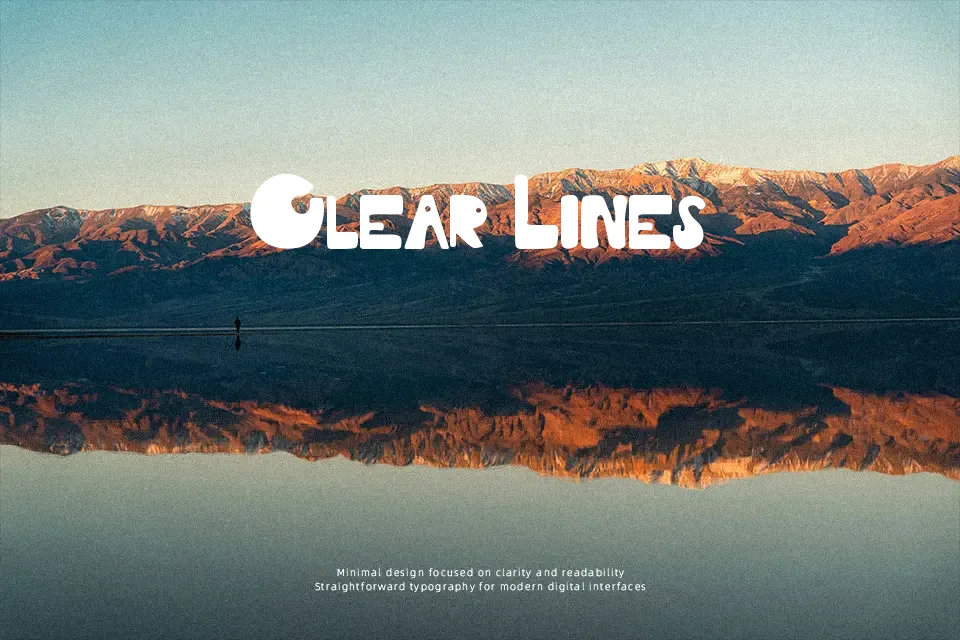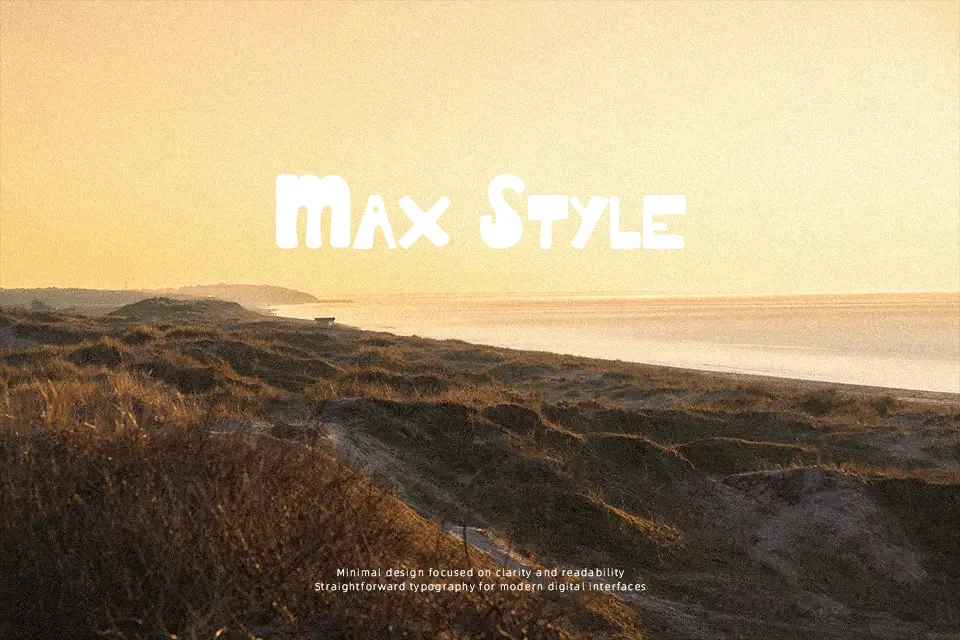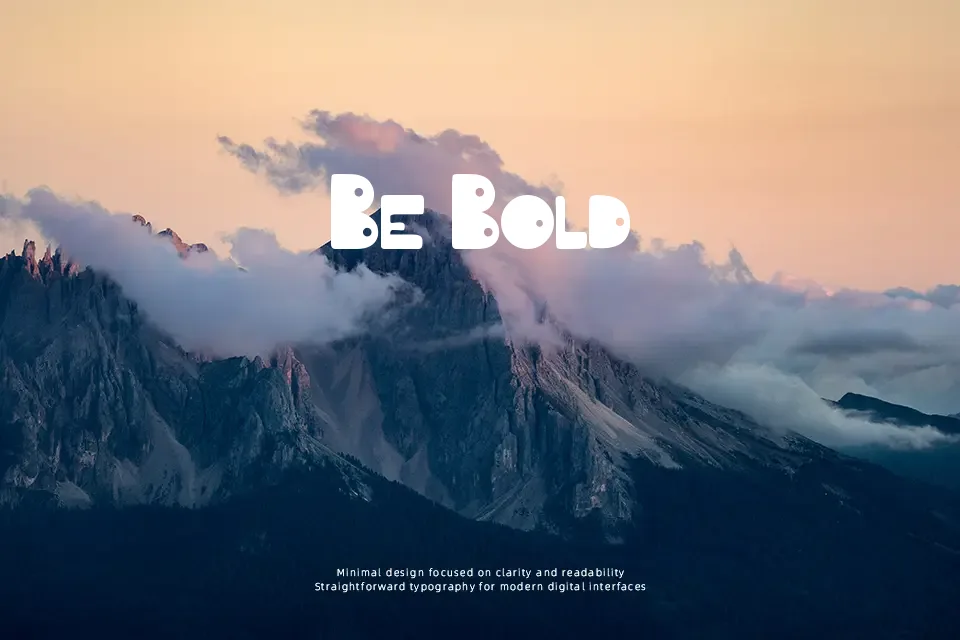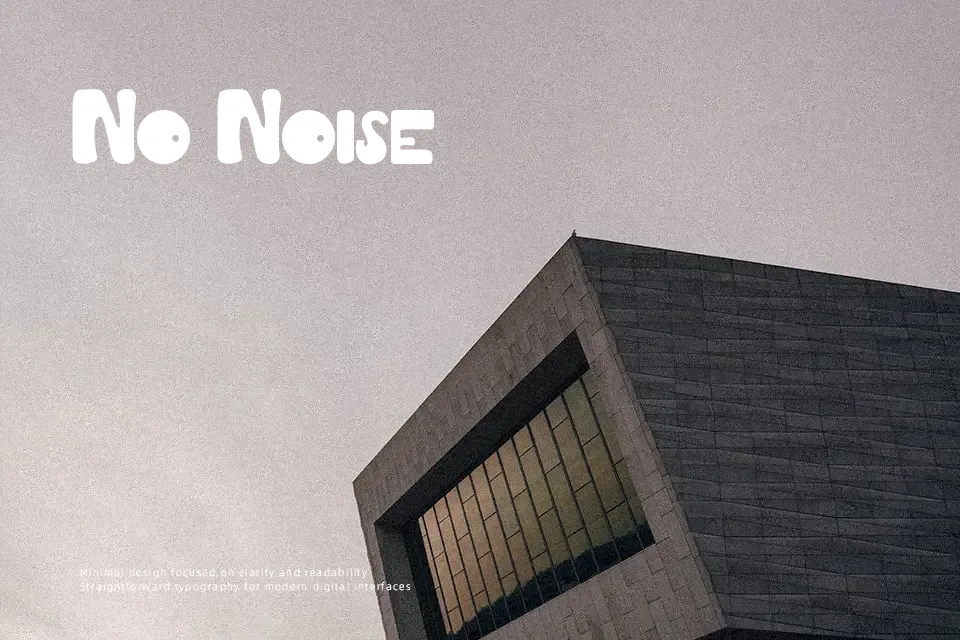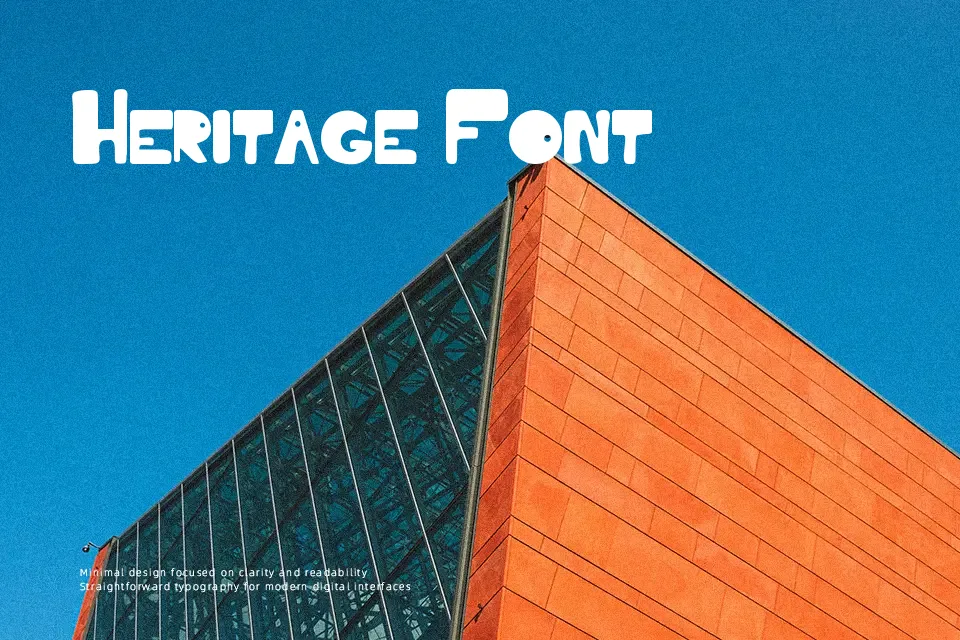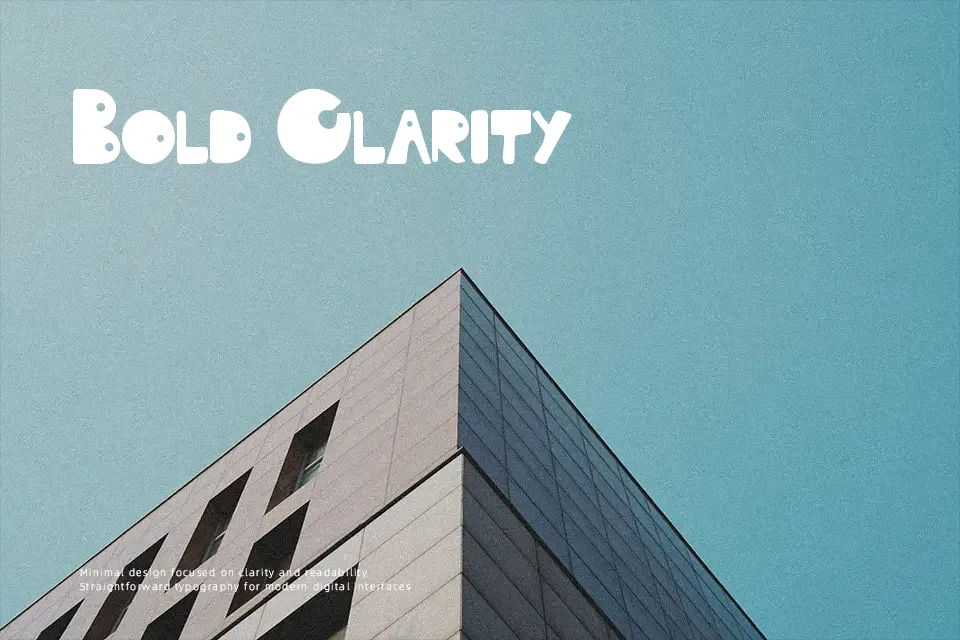
Summer Of Love Font
Summer Of Love Font works best as large display lettering, using heavy, softly rounded forms and flowing curves to create a distinctly groovy visual rhythm. The characters have broad proportions, low stroke contrast, and close-fitting internal shapes that make short words feel compact and animated. Its expressive construction gives posters, album-style titles, and bold social graphics a strong period-inspired presence. The weight helps preserve impact in large headlines, but the unusual contours make extended reading less comfortable. It is most effective when used sparingly, with generous surrounding space and a simple supporting typeface.
Best For: retro music posters,festival signage,album-style headlines,psychedelic packaging
Perfect for headline, music, and packaging, with a bold and decorative style.